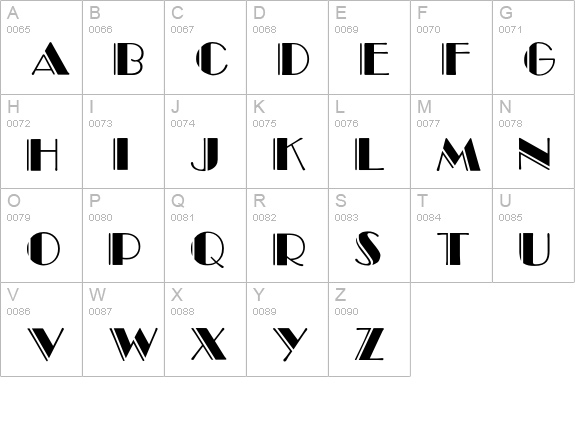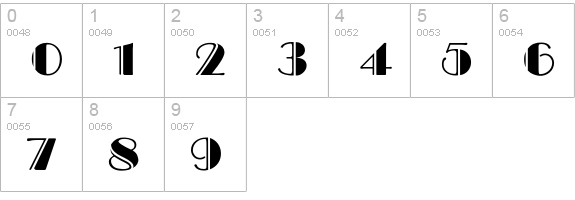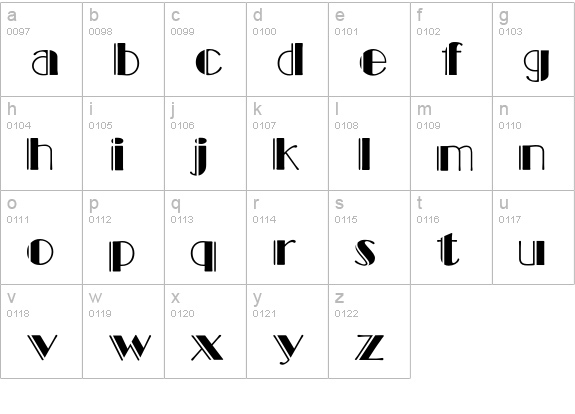
BroadwayEngraved Font Details
BroadwayEngraved font exudes a timeless elegance and sophistication that is perfect for adding a touch of class to any design project. Its bold and dramatic strokes make a strong statement, while the intricate details of the engraving add a touch of refinement. This font is a versatile choice for a wide range of projects, from invitations and event posters to luxury branding and editorial design. Its classic yet modern appeal makes it a favorite among designers looking to make a lasting impression. Best of all, BroadwayEngraved font is available for free download at FontsMarket.com. So whether you're a seasoned professional or a budding designer, you can easily access this stunning font to elevate your creations. Download it today and let BroadwayEngraved font bring a touch of glamour to your next project.